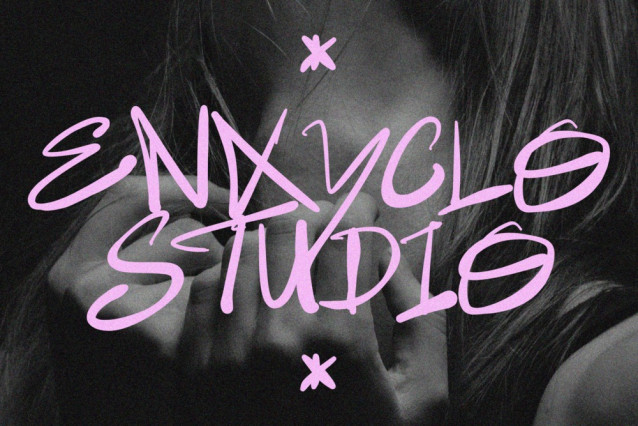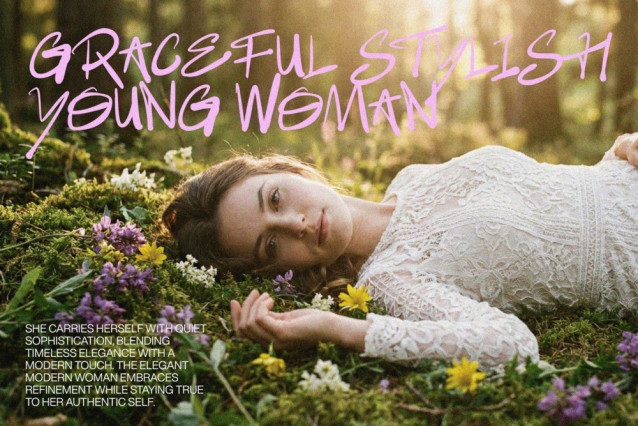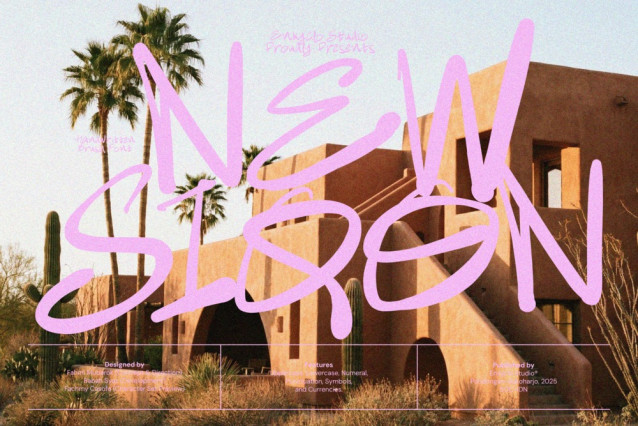
New Siqon Font
New Siqon Font is a bold brush font crafted with an expressive hand-drawn style that brings raw energy and spontaneous personality to your designs. Its strong strokes, textured edges, and authentic handwritten character create a powerful visual impact—perfect for designers who want something unique, sporty, and full of attitude. With its raw and dynamic aesthetic, NEW SIQON instantly stands out in posters, headlines, and sports-themed visuals, delivering intensity and movement in every letter. Whether you’re shaping bold branding, crafting an energetic layout, or creating visual storytelling with an urban edge, this font adds a distinctive punch that grabs attention effortlessly. Unpolished, vibrant, and full of character—NEW SIQON is your go-to typeface for bold creative expression.
PERFECT FOR
• Sport posters and dynamic headlines
• Bold branding and logo concepts
• Urban-themed designs
• Event promotion materials
• Creative agency visuals
• Social media graphics
• Editorial layouts
• Eye-catching product packaging